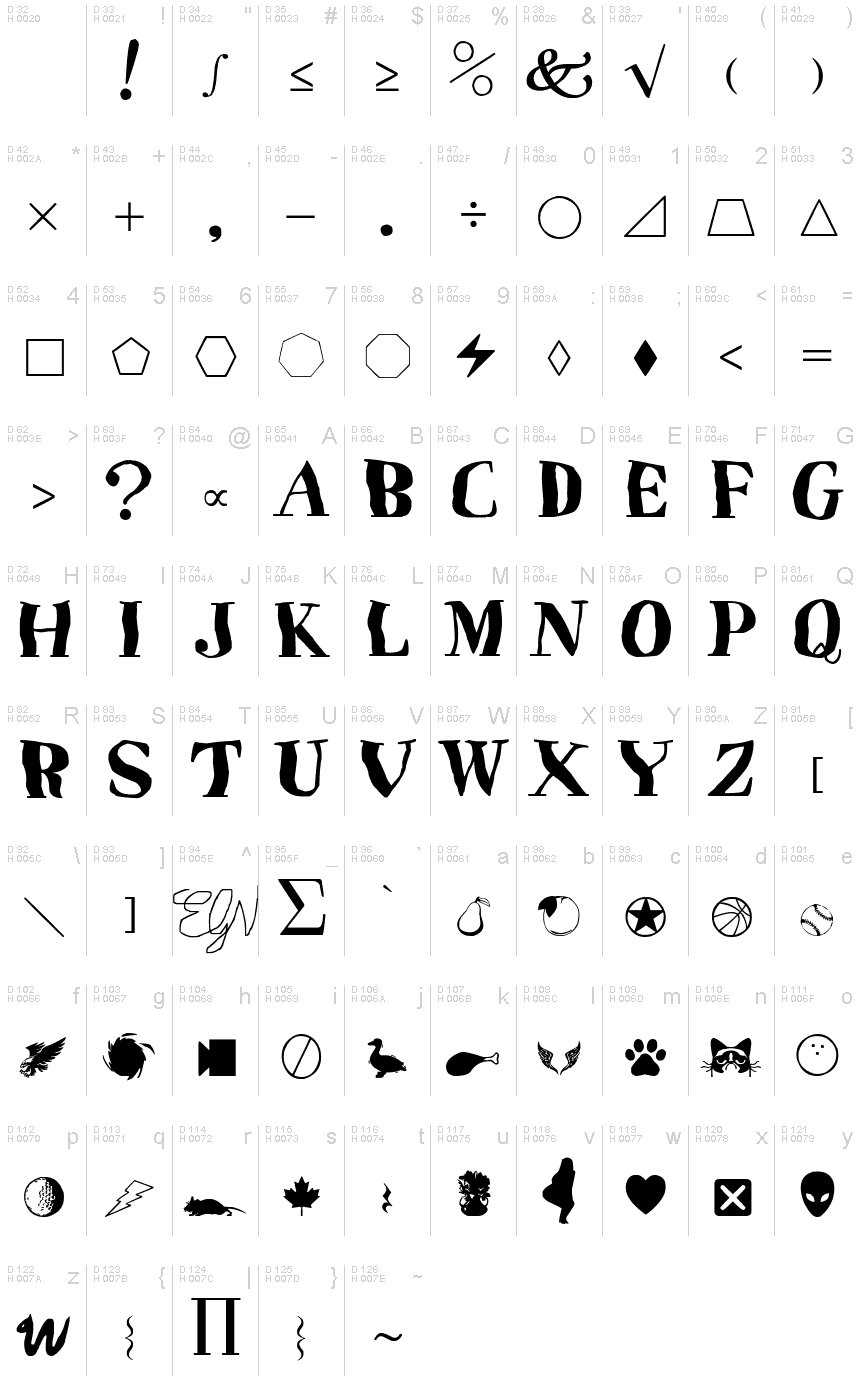
Markbats 2
Markbats 2 is the second installment of the Markbats font chain. It contains hand-drawn capital letters, a diverse arrangement of symbols for the lowercase letters, cultural symbols, arrows, and stars. It has more symbols than the first font.